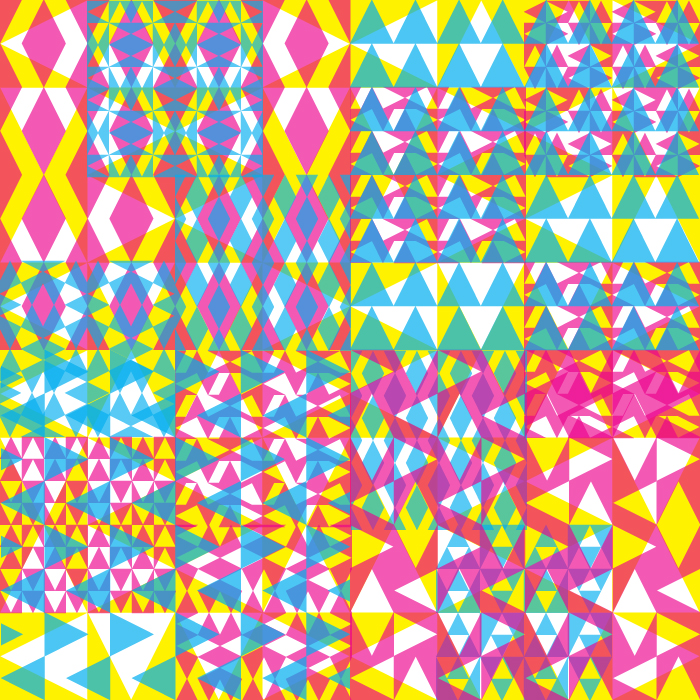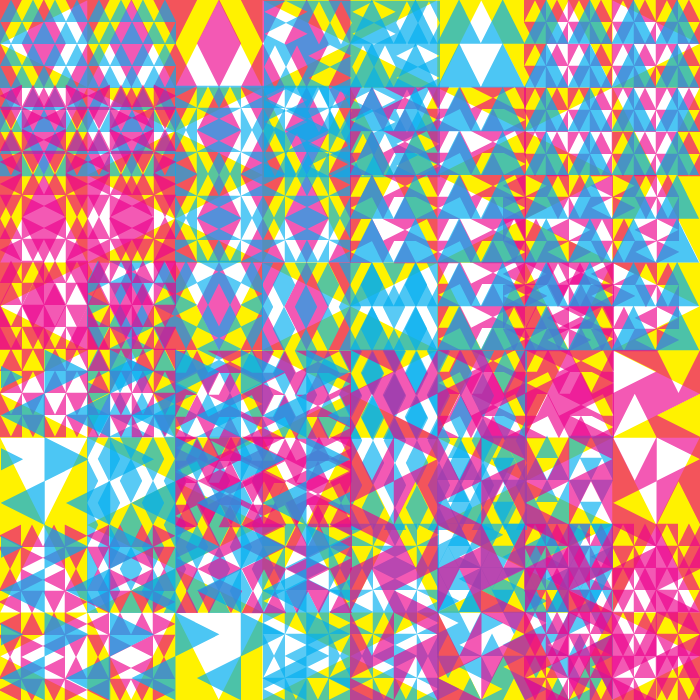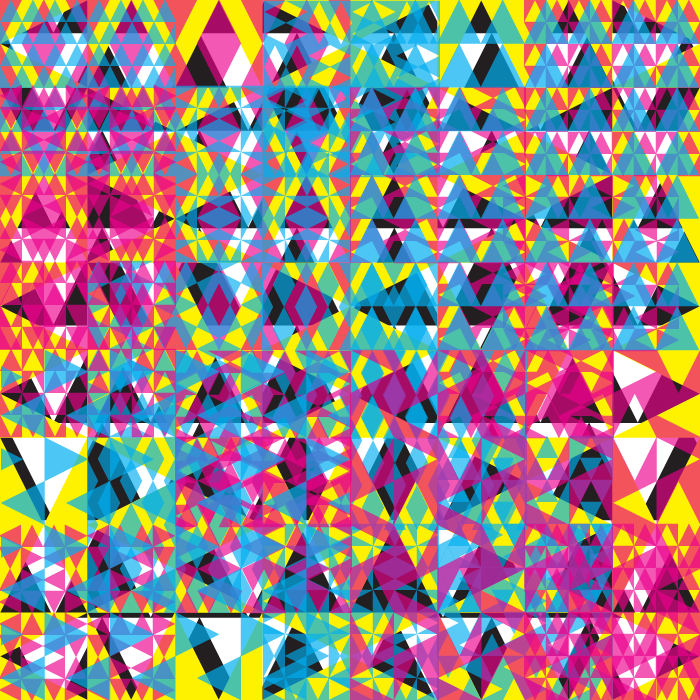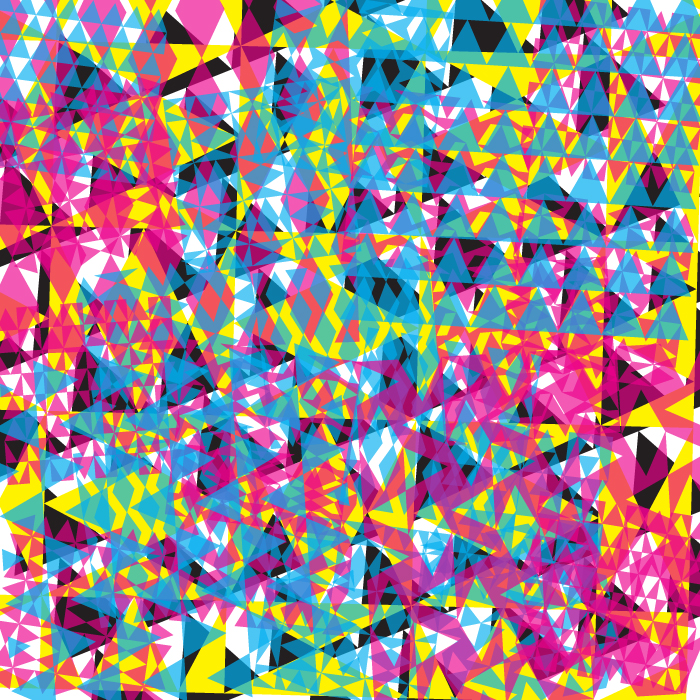
Nice patterns, a lot of them hurt my eyes :) 10/10
I'm gonna copy some of these pretty things in a new font soon... (with your permit, of course).
If the plain font hurt Winty's eyes, what will he say about those colourful samples?!
My mind boggles and my eyes have no idea where to look ... great design!
Very psychodelic!
This is so confusing to look at and I love it